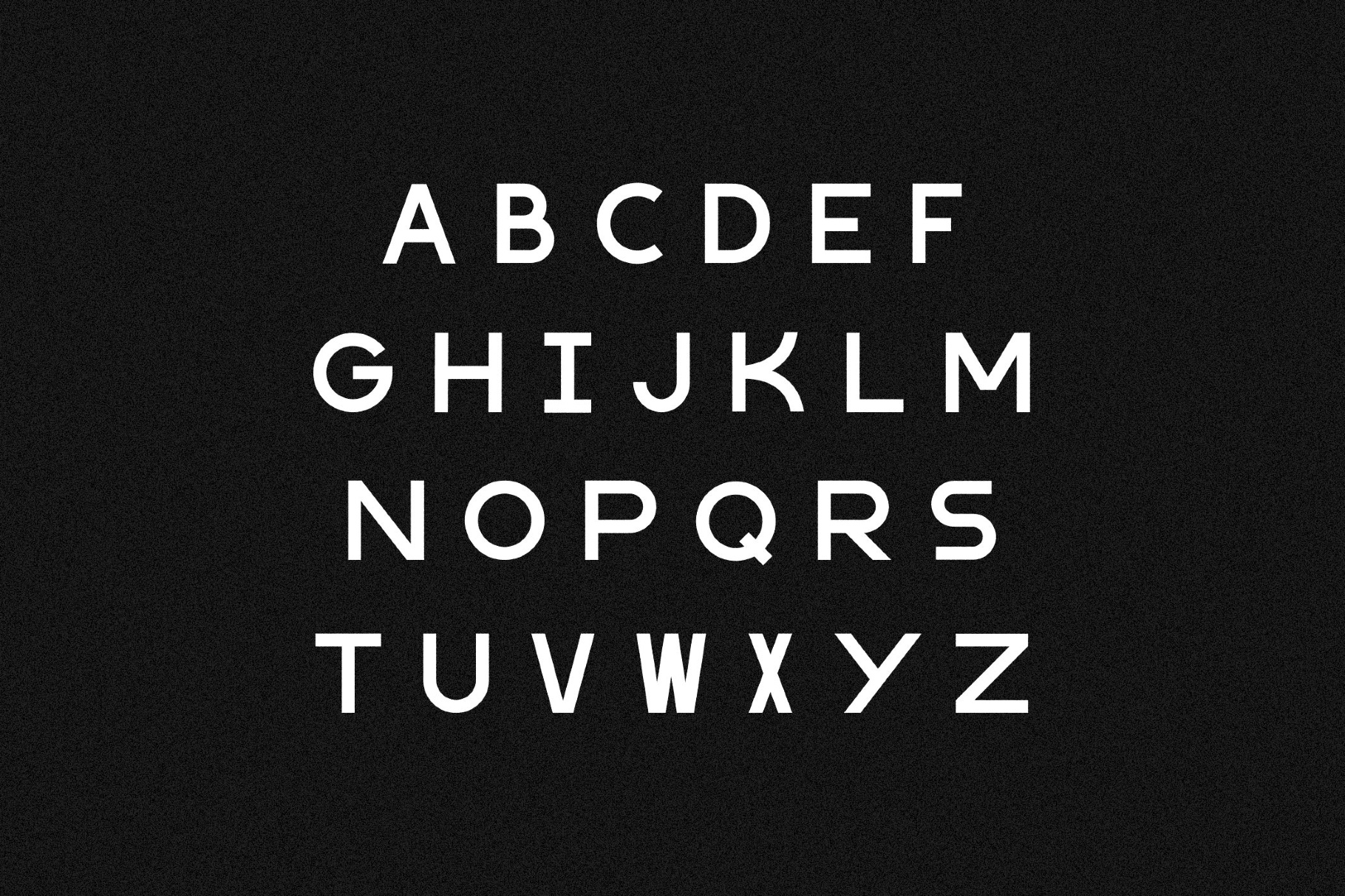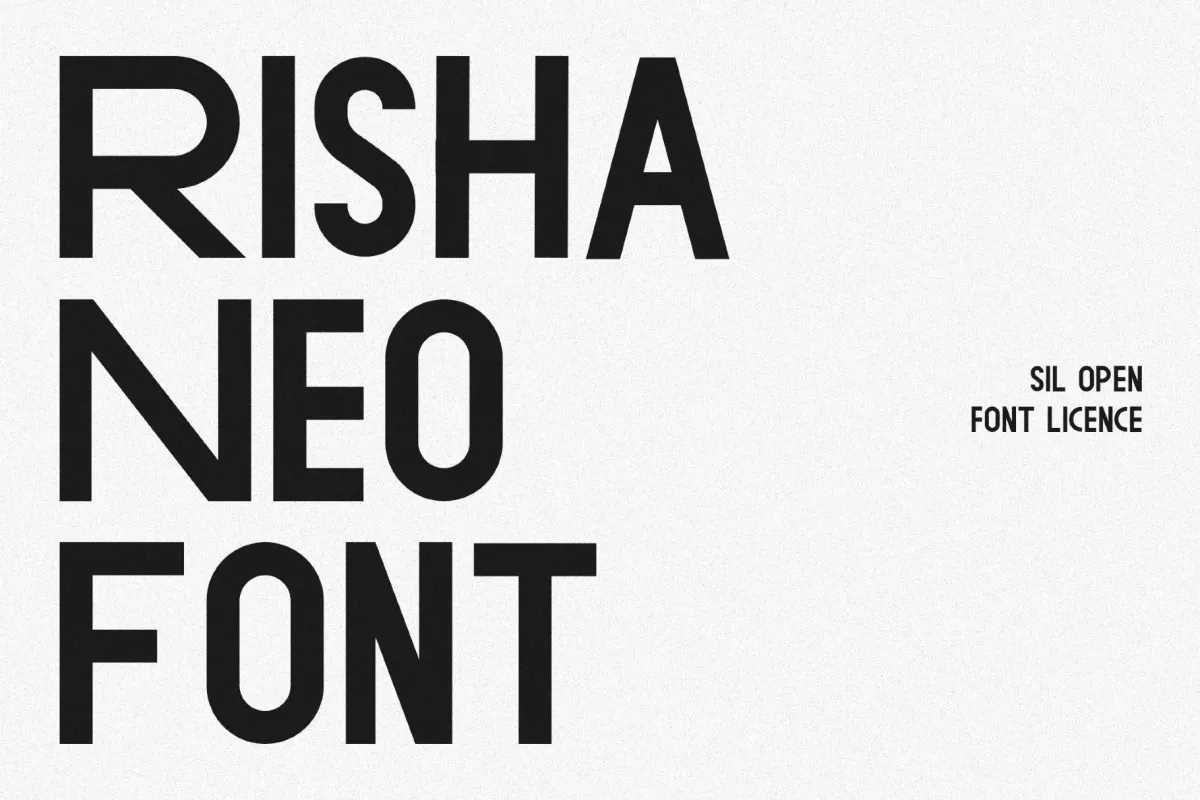
Risha Neo Font
RishaNeo
Risha Neo is a minimal, all-caps geometric font with disciplined spacing, evoking International Typographic Style posters. The pared-back geometry and clear spacing suit restrained branding and logotypes, brand wordmarks, packaging fronts, UI section headers, editorial headlines, navigation systems, digital interfaces, and type-led social media graphics.
- Uppercase letters only.